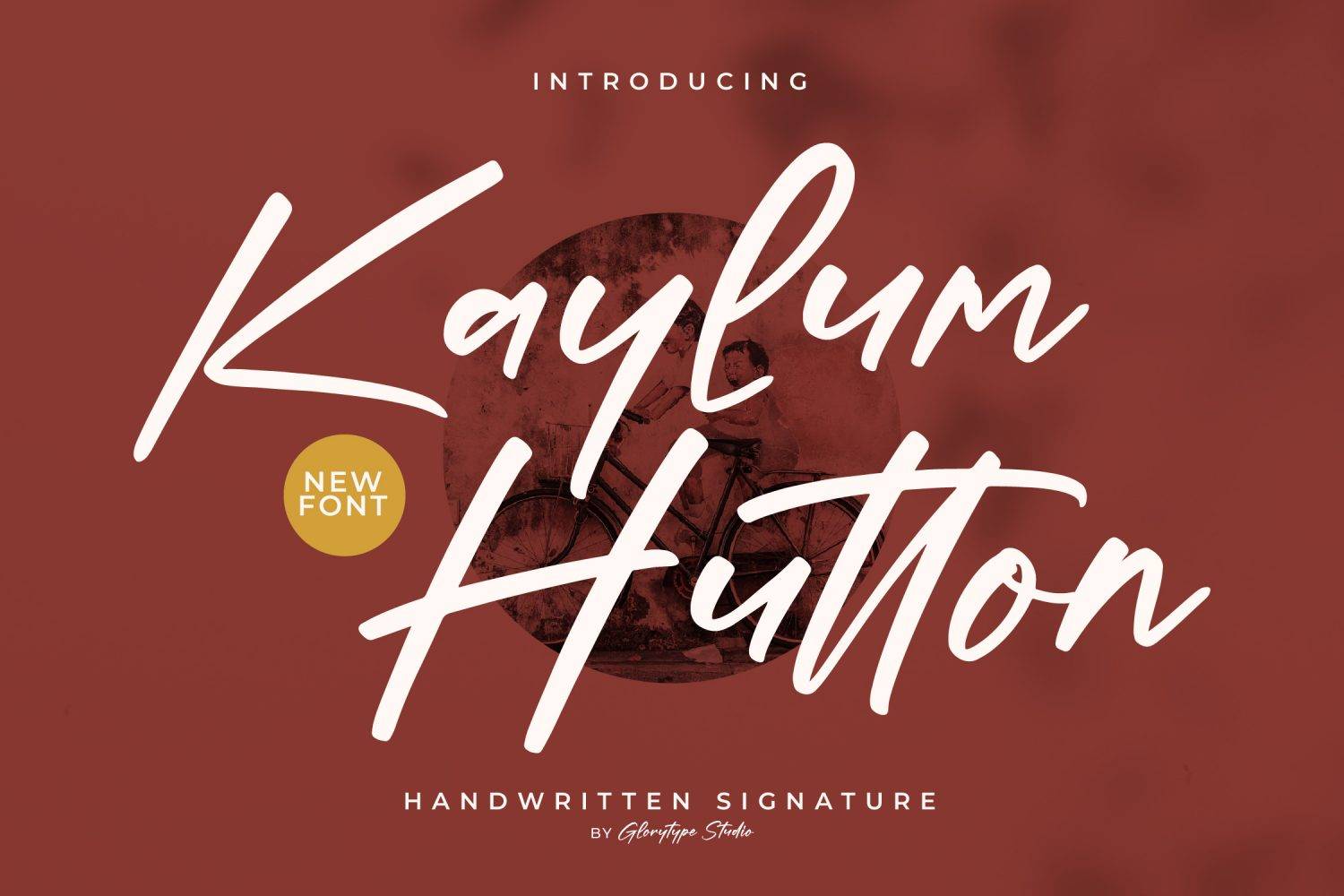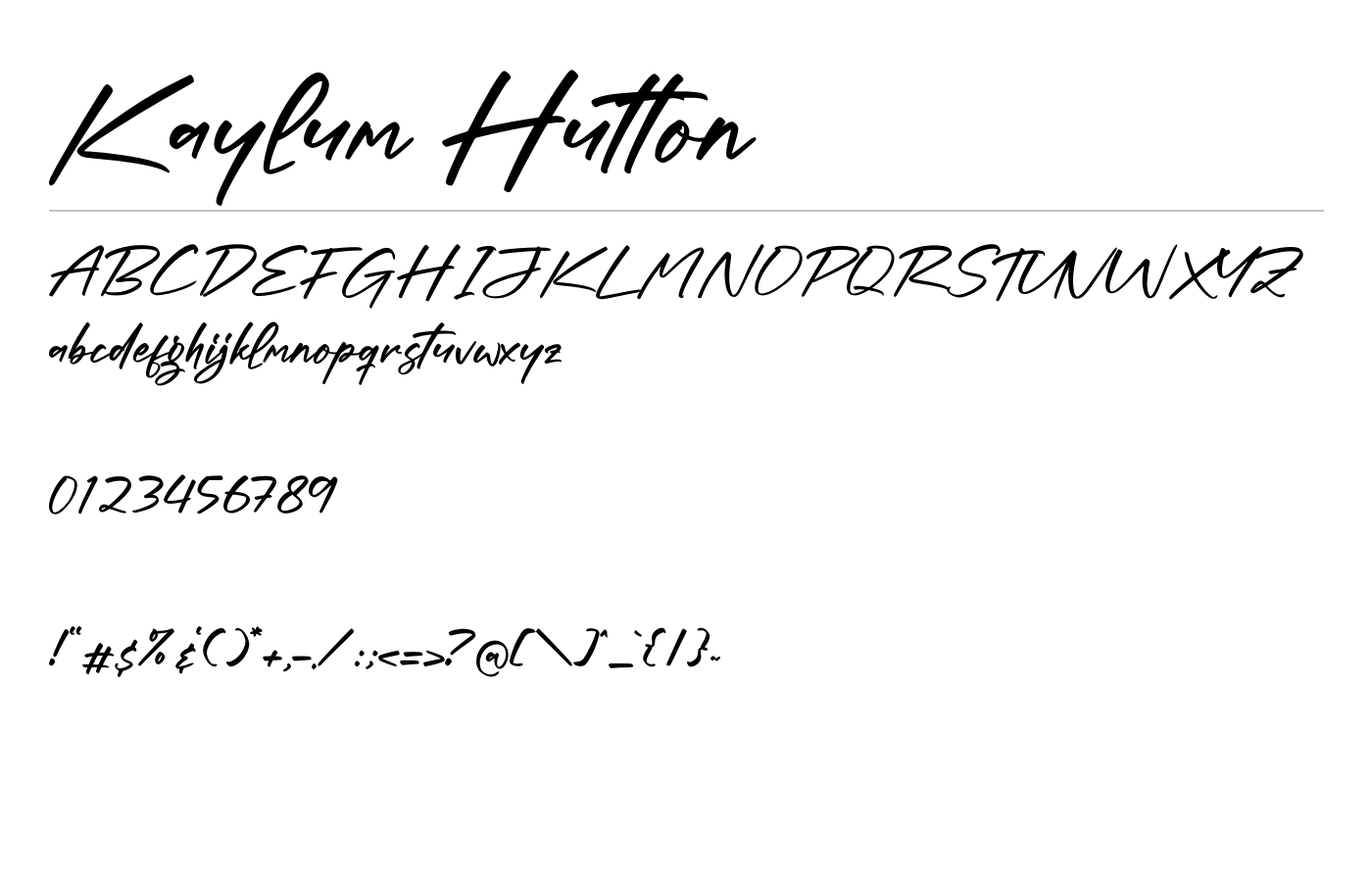
Kaylum Hutton is a casual, handwritten script font that combines fluid, natural strokes with a modern flair. Its light to medium weight and slightly condensed letterforms give it an elegant yet approachable personality, perfect for adding a personal touch to branding, invitations, and creative projects. This font works beautifully in logos, headlines, and packaging where a stylish, authentic feel is desired.
Kaylum Hutton Font
About Kaylum Hutton Font